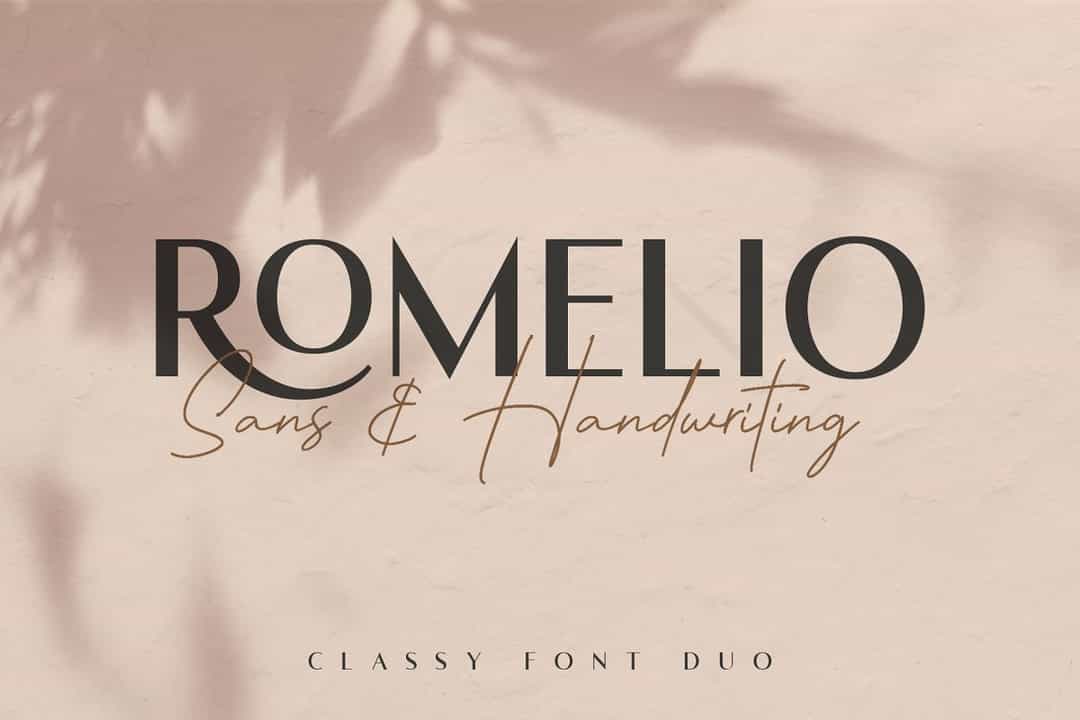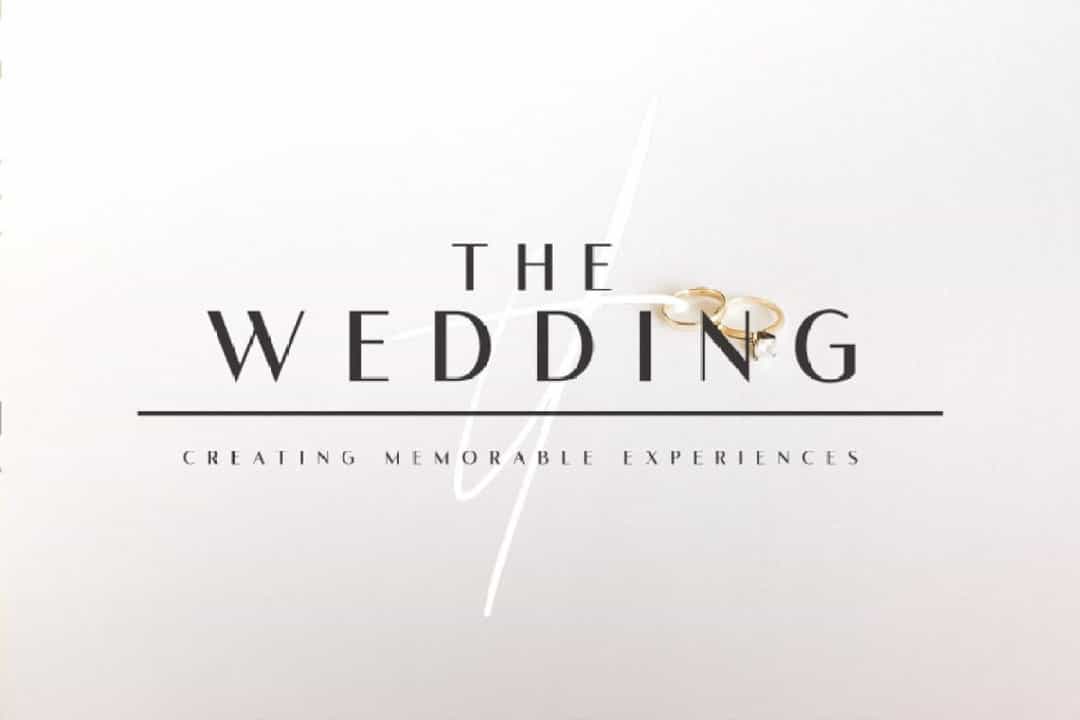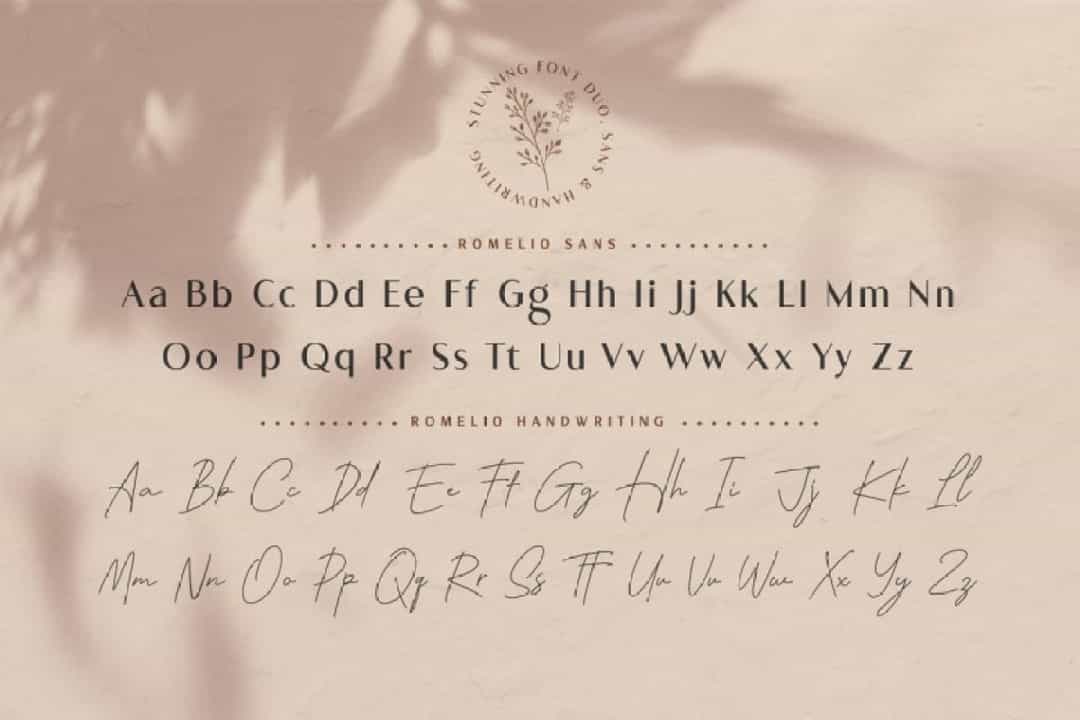
Discover Romelio Classy Sans Serif Font, part of the Sans Serif Display Basic collection—a versatile and unique font perfect for adding a personal touch to your projects. Download it for free and enjoy crafting designs with style, from invitations to social media posts. This font is available exclusively for personal use, giving you the freedom to create without limits. Unlock your creativity with Romelio Classy Sans Serif Font today!
Romelio Classic Font Duo will help to enhance the design and to make it more attractive with the use of minimalistic sans serifs and elegant handwritten fonts inspired by the modern fashion and travel. Romelio is a great package of fonts to use in your design and create contrast and make your design look more professional and neat.